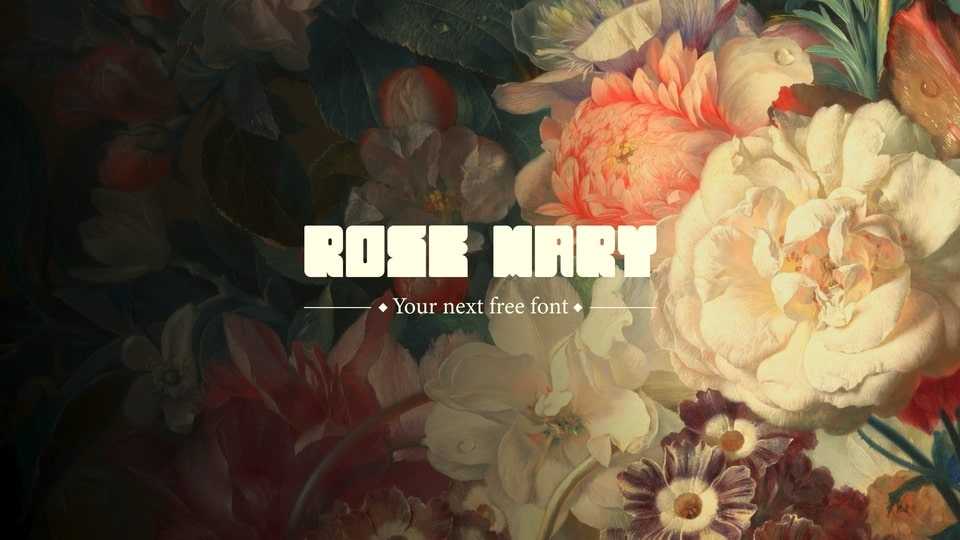
Download Rose Mary font, an excellent typeface for projects requiring a strong and bold typeface for titles. Rose Mary font features a bold, crisp, yet curved appearance that captures attention and leaves an impression on onlookers.
Designer: Ved Sarkar